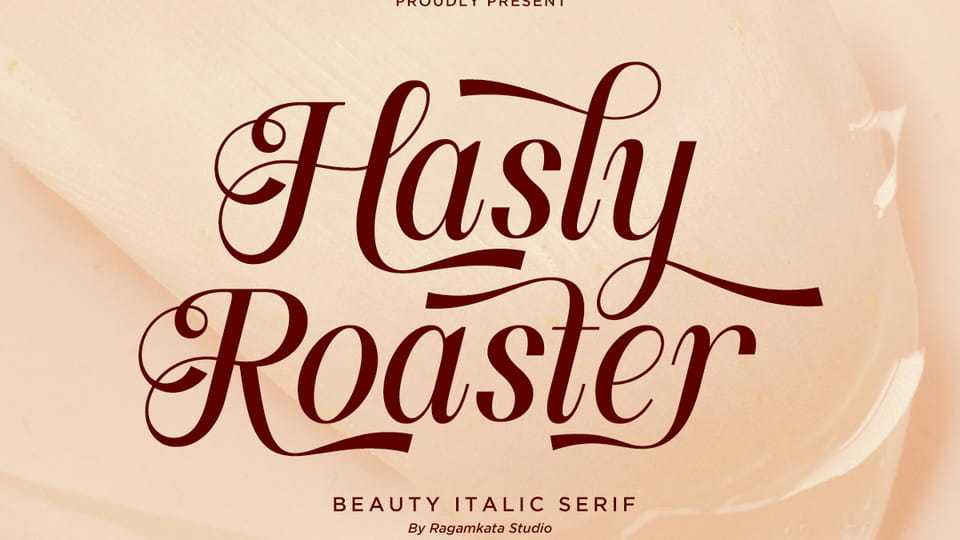
Download Hasly Roaster font, a luxurious beauty italic serif typeface that blends elegance and sophistication in every stroke with its graceful curves, stylish ligatures, and refined contrast.